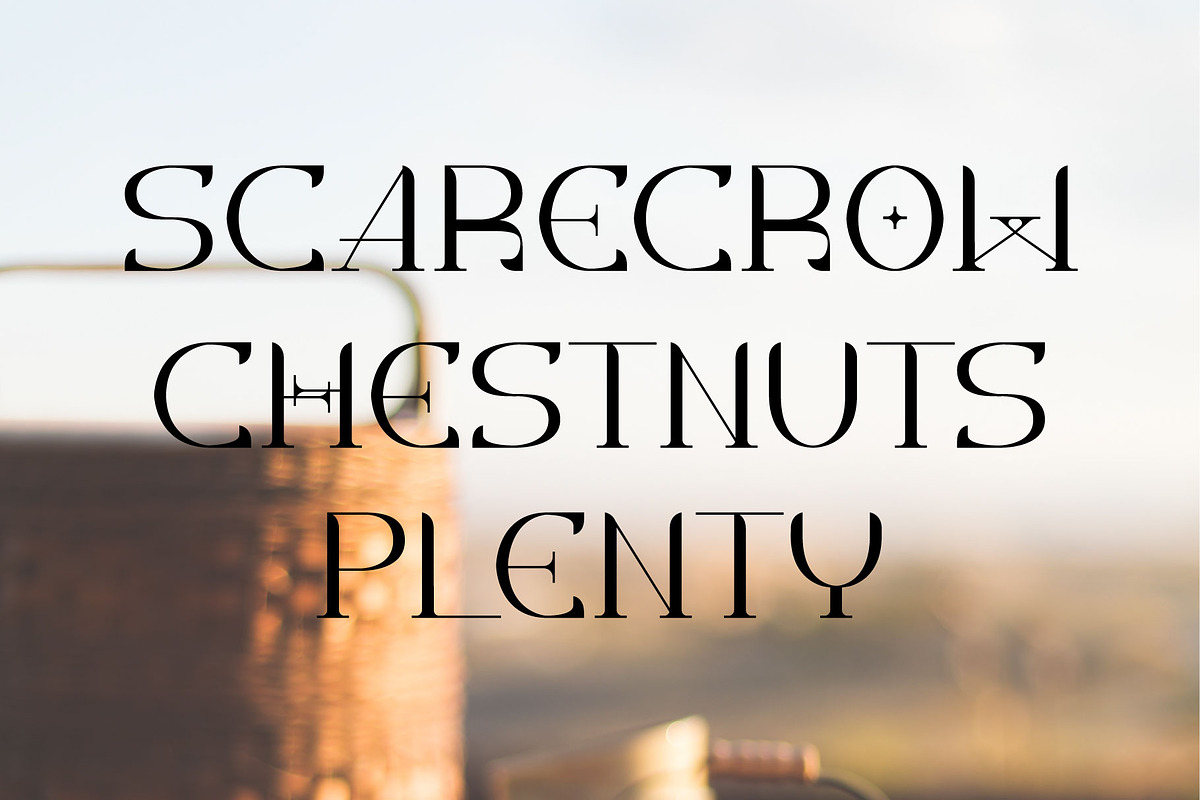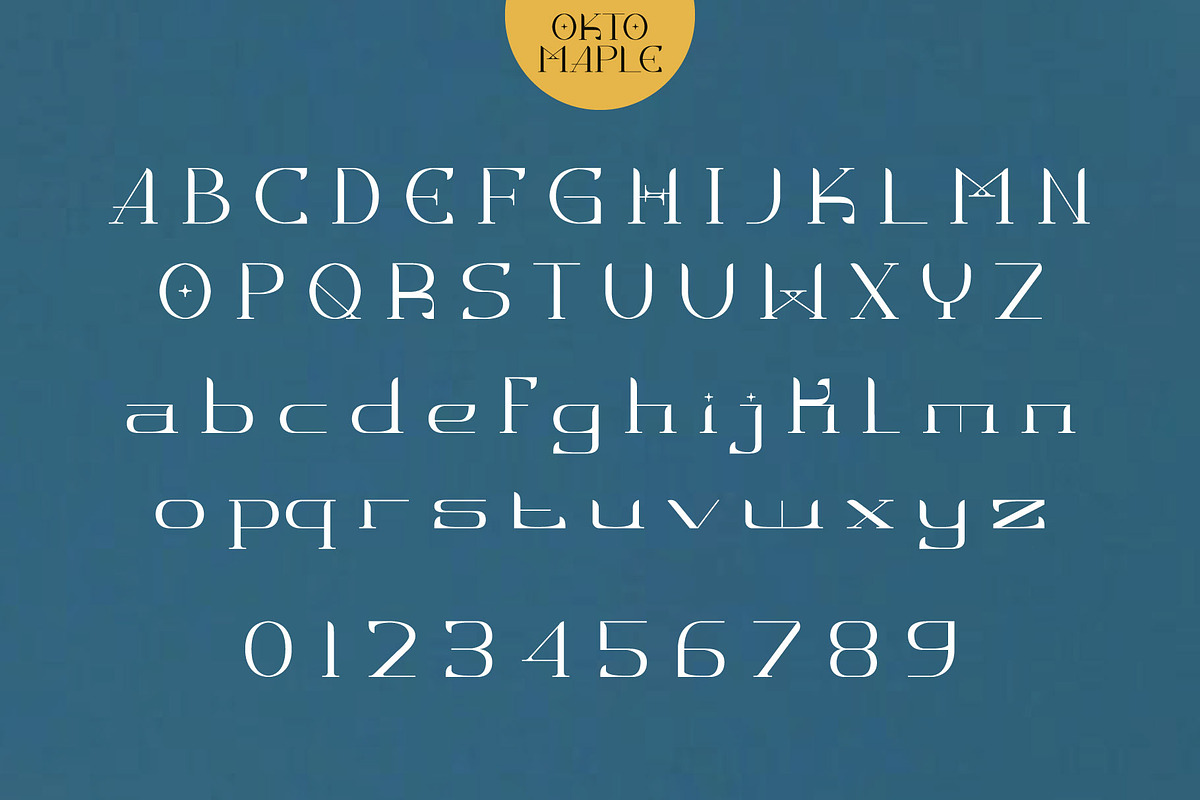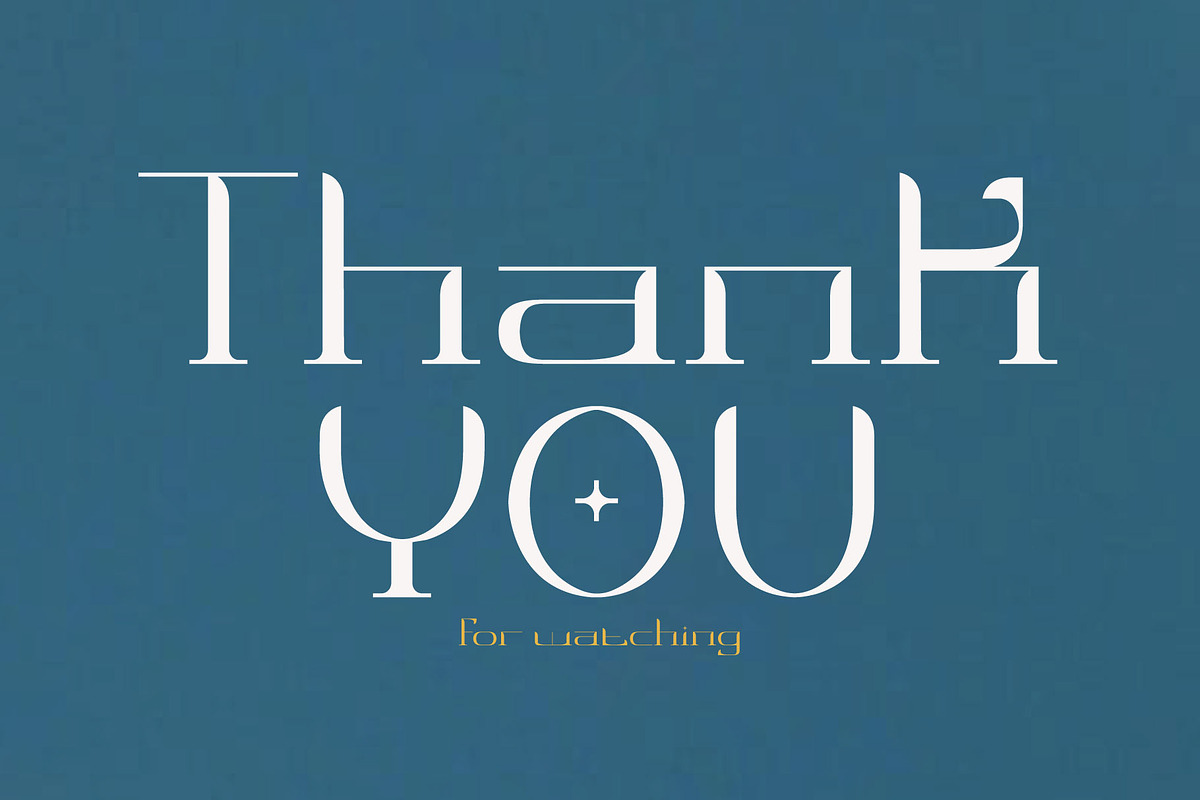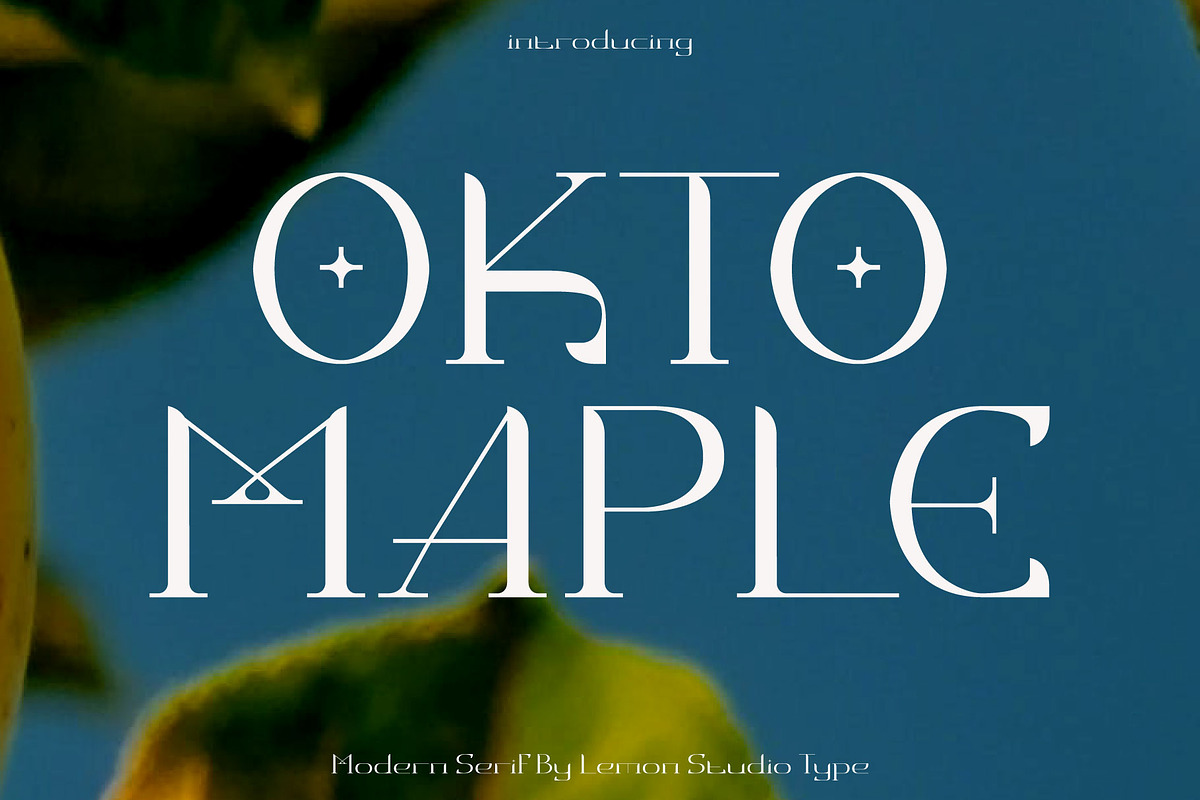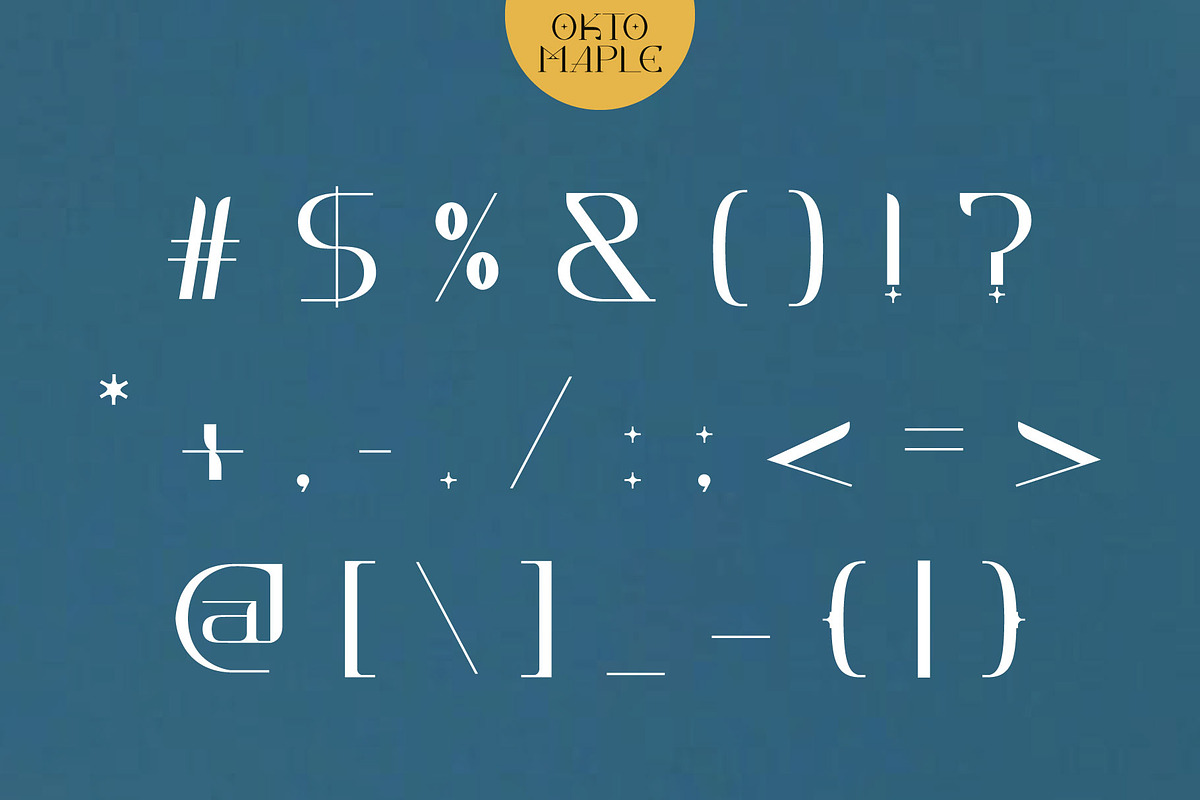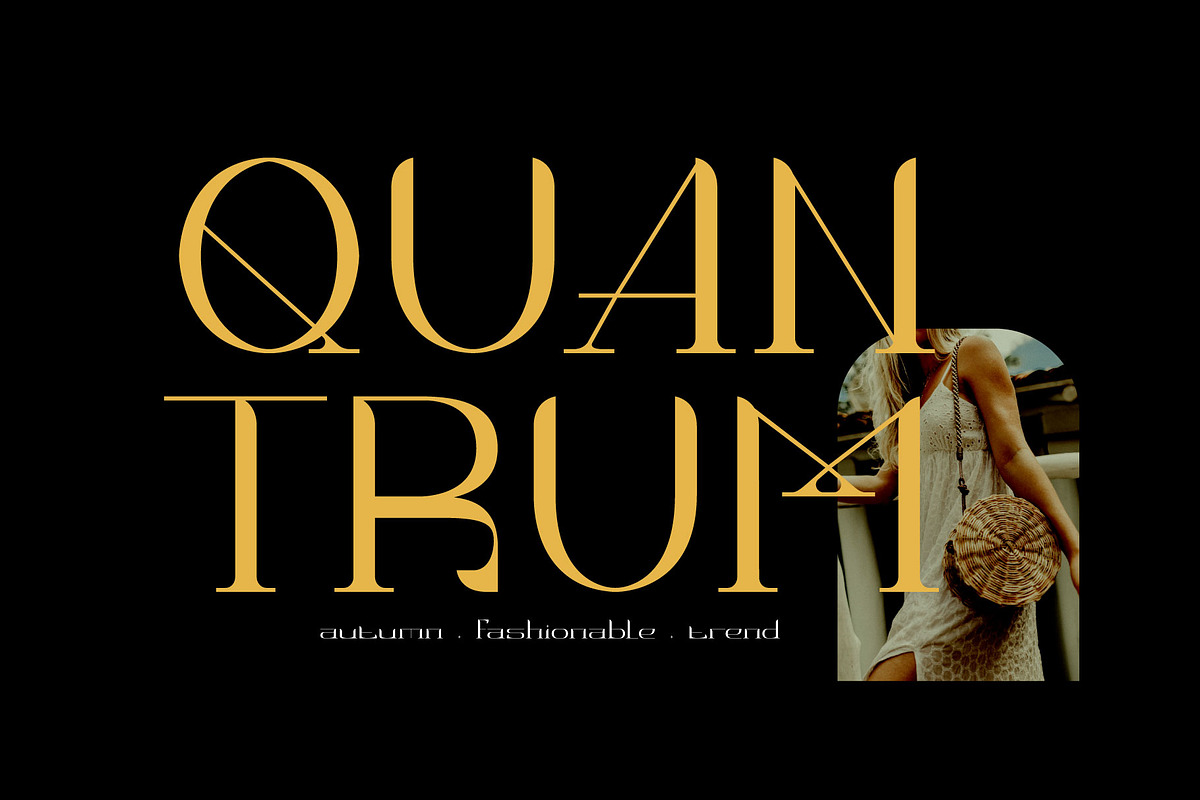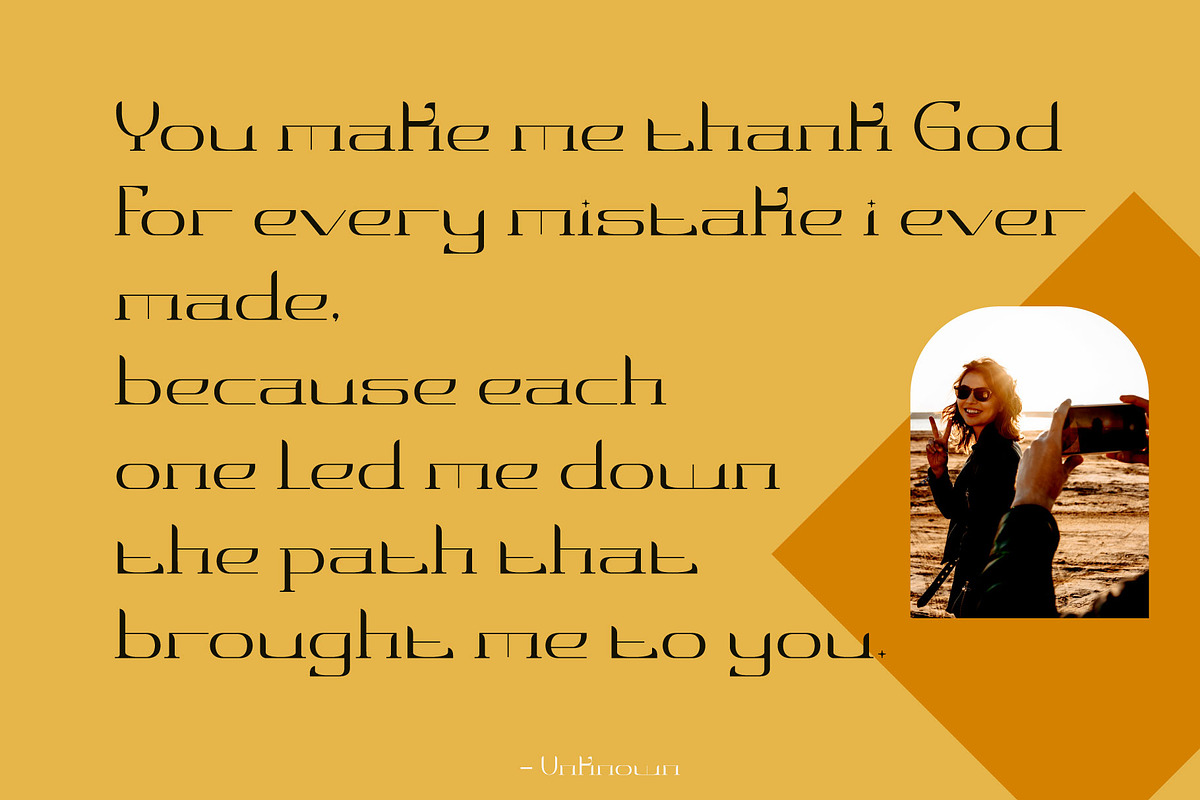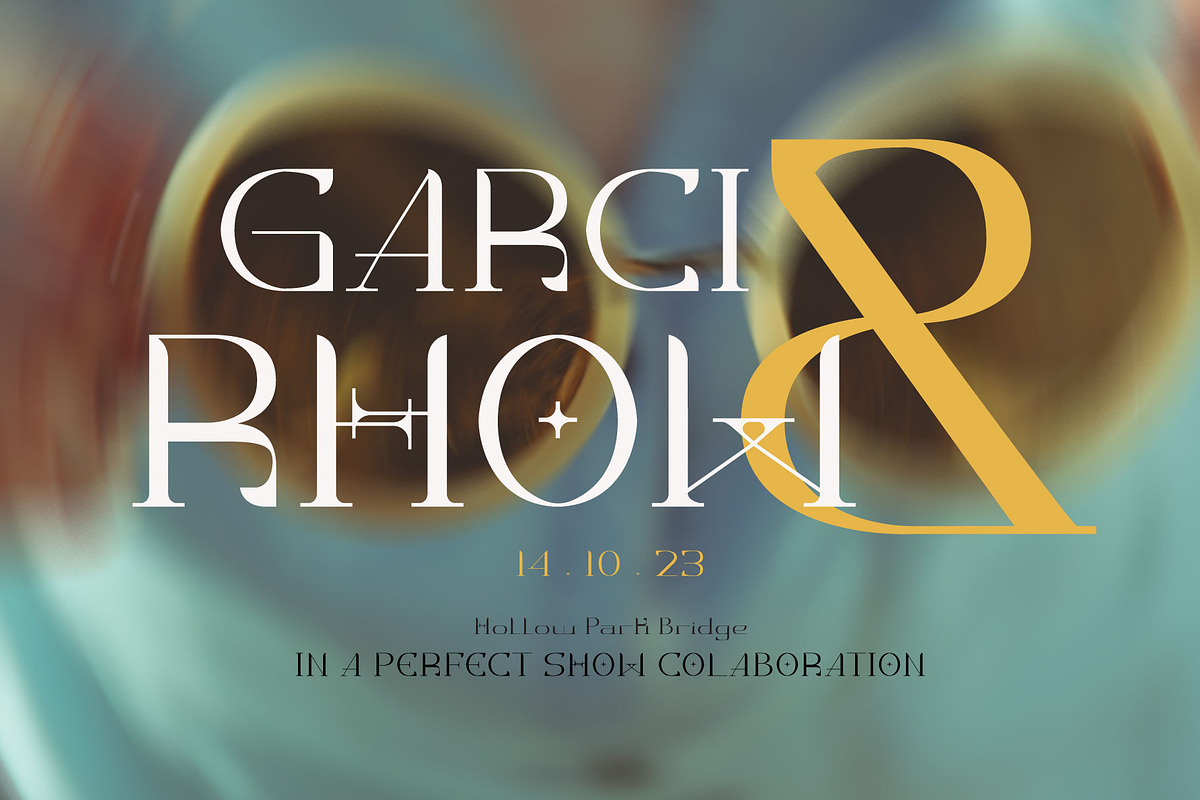
Okto Maple - Modern Serif
Okto Maple is a modern slight serif font. With a minimalist appearance, it gives a luxurious impression and is very suitable for use for websites, logotypes, branding identities, wedding stationery, and even if you just want to use it as a quote.